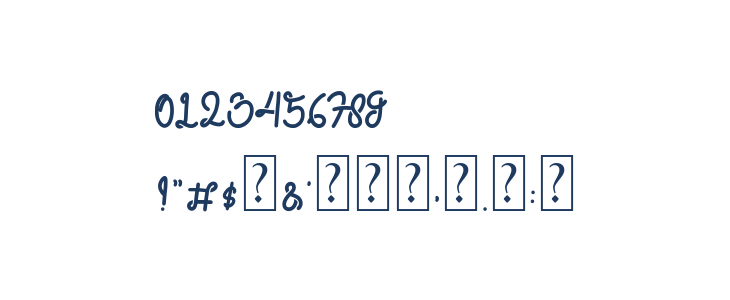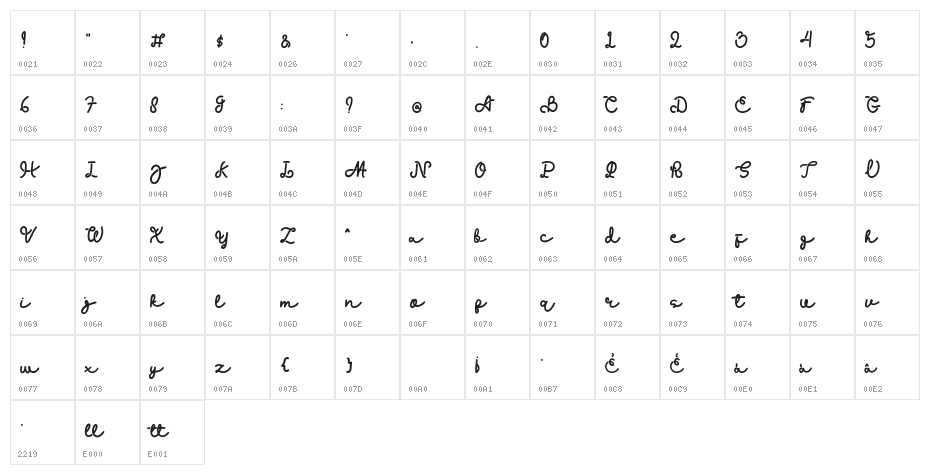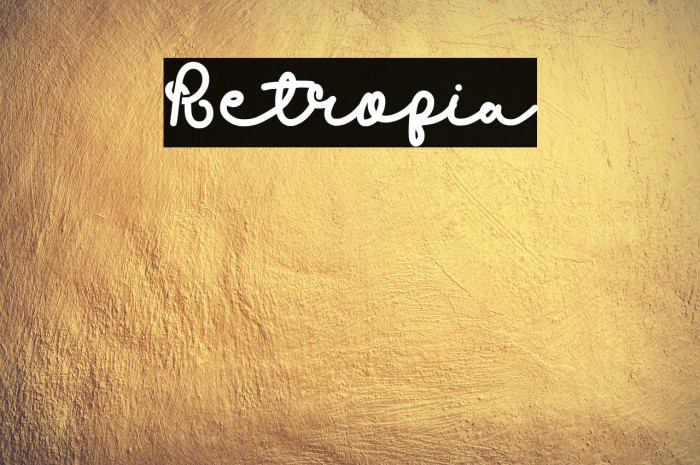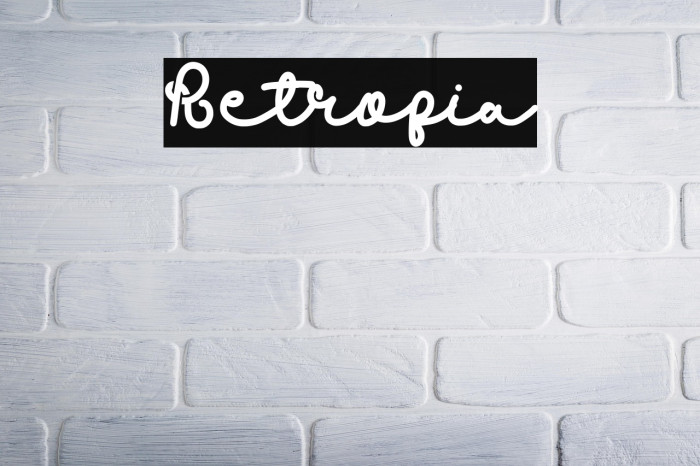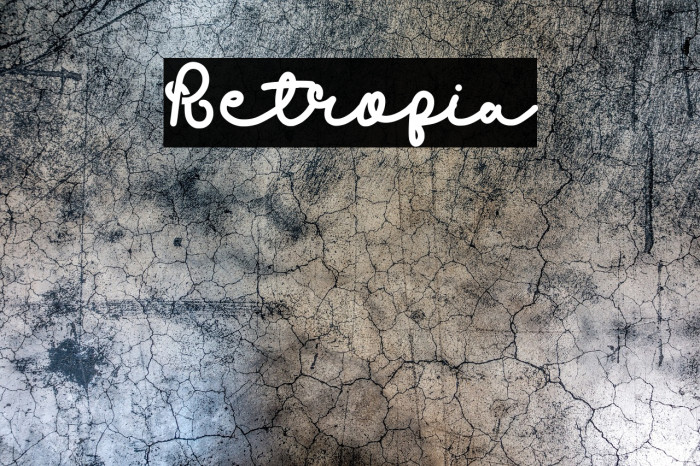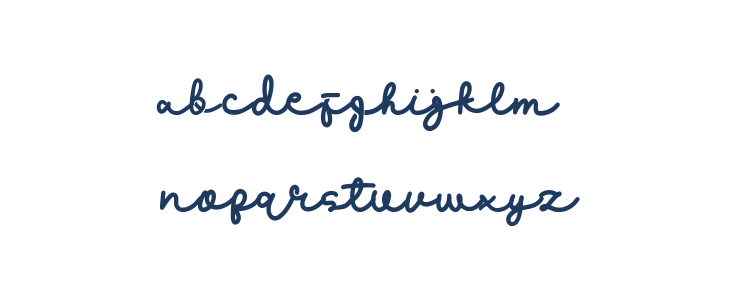
Retropia Font
Retropia Description
This font features a playful and flowing script style, characterized by its smooth, connected strokes and a handwritten appearance. The uppercase letters are bold and slightly exaggerated, giving them a whimsical and artistic flair. The lowercase letters maintain a consistent flow, enhancing readability while retaining a casual elegance. Numbers are clear and distinct, matching the overall style of the alphabet. Special characters are creatively designed, adding to the font's unique charm. This font is ideal for projects that require a personal touch, such as invitations, greeting cards, or branding materials.
| Use Case | Logos, Headlines, Invitations |
| Proposed Projects | Ideal for invitations, greeting cards, branding materials, and creative projects. |